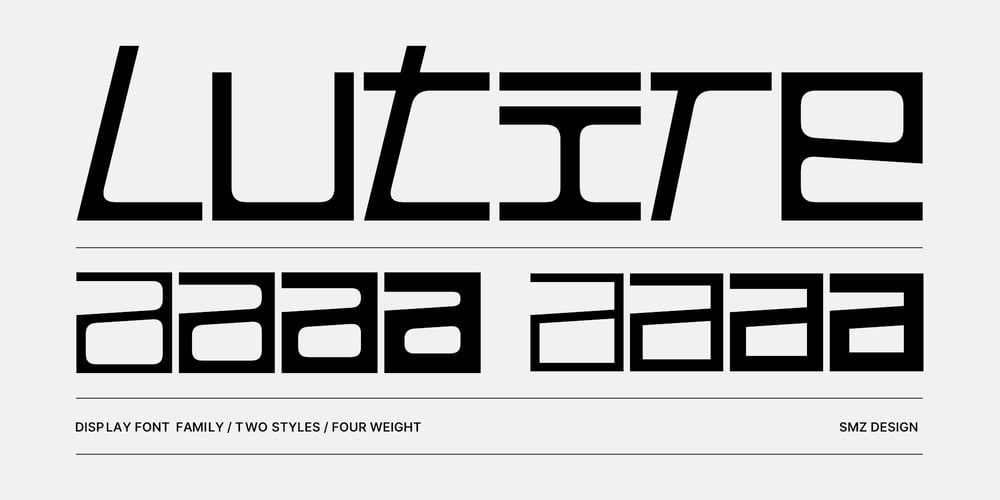
Lutire Font Family was designed by Szymon Mandziarz and published by SMZ Design. Lutire contains 8 styles and family package options. Lutire is a modern font with a geometric form. It combines simplicity and intriguing character. Comes in two styles (Normal, LX) Each style has four weights (thin, light, regular, bold).A characteristic accent is created by slants in several letters that go beyond common rules. The LX style has slight rounding inside the glyphs, softening the geometric tone. Both styles are characterized by a refined form. They will work well in branding, headlines, clothing, posters and other attention-grabbing designs with an intriguing style.